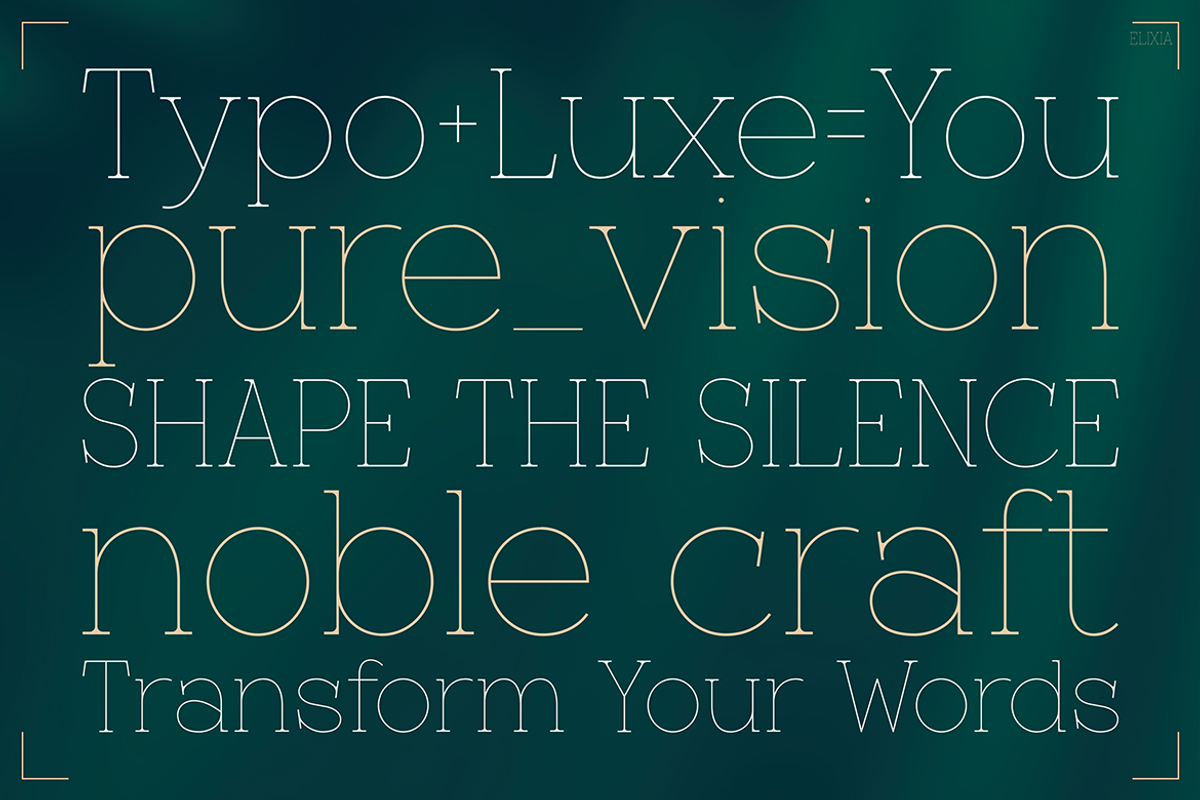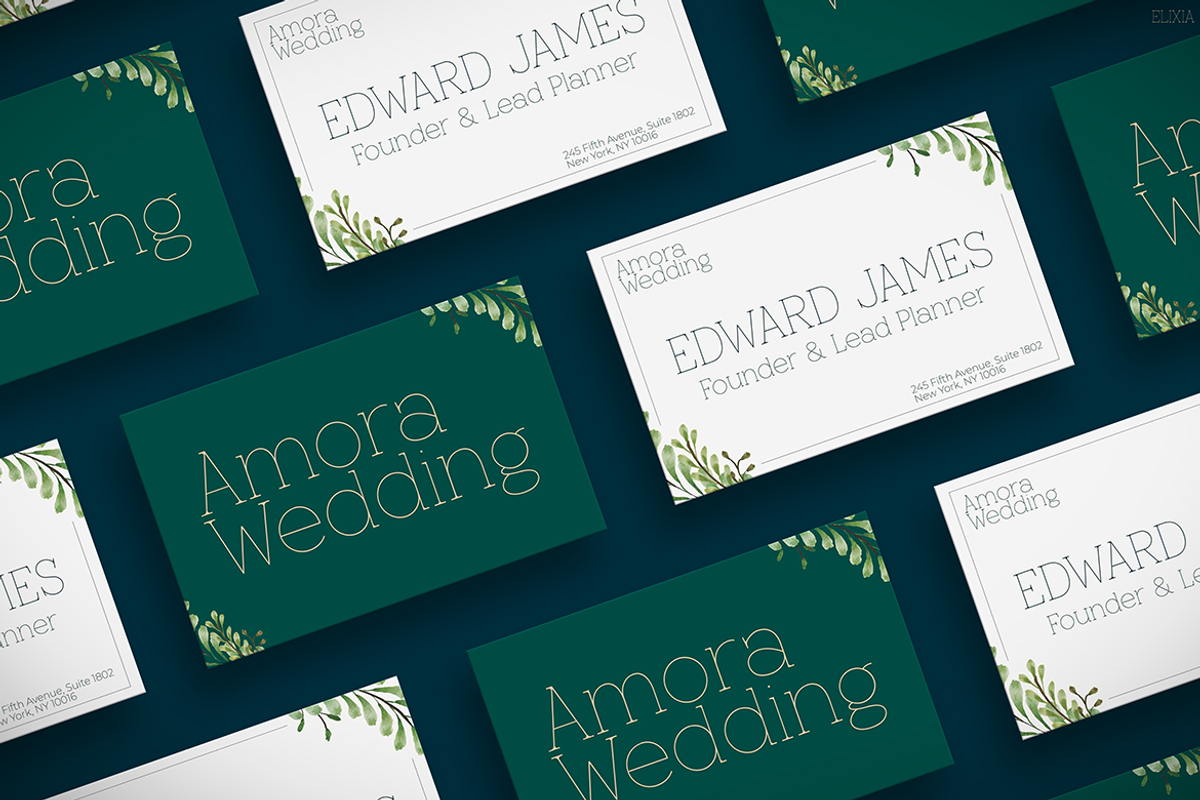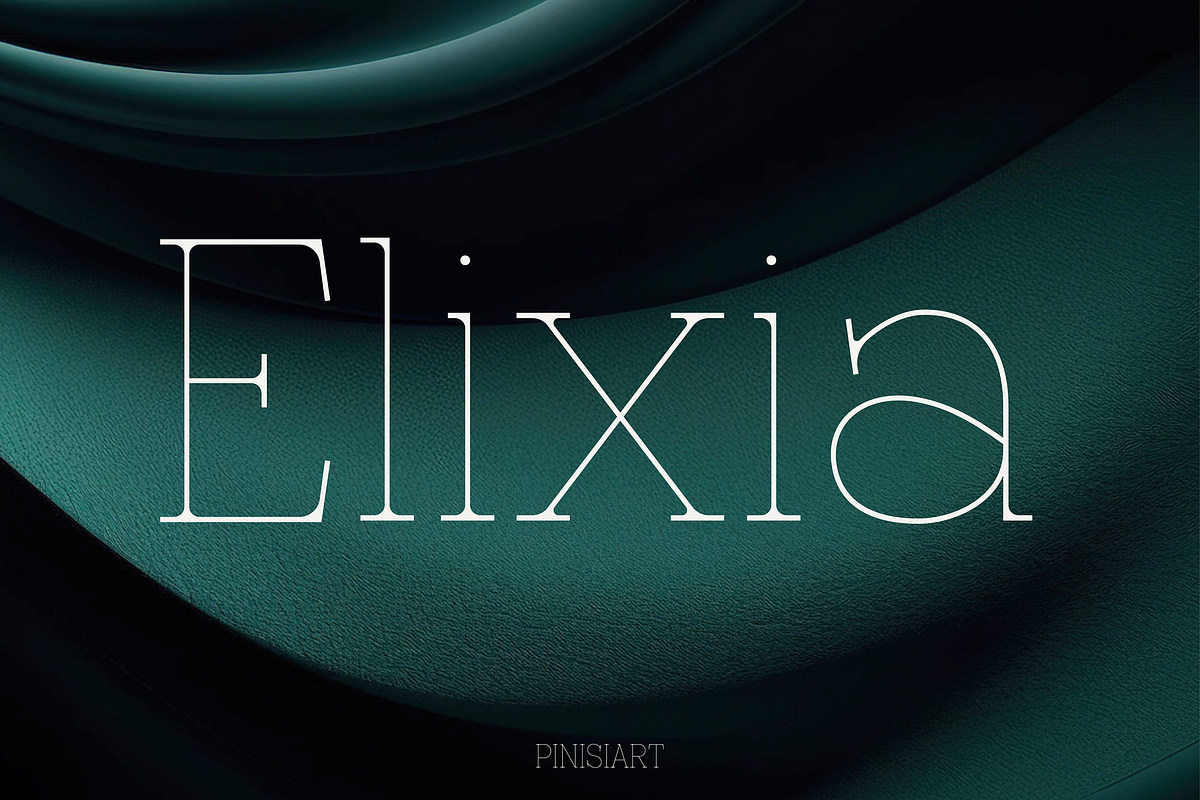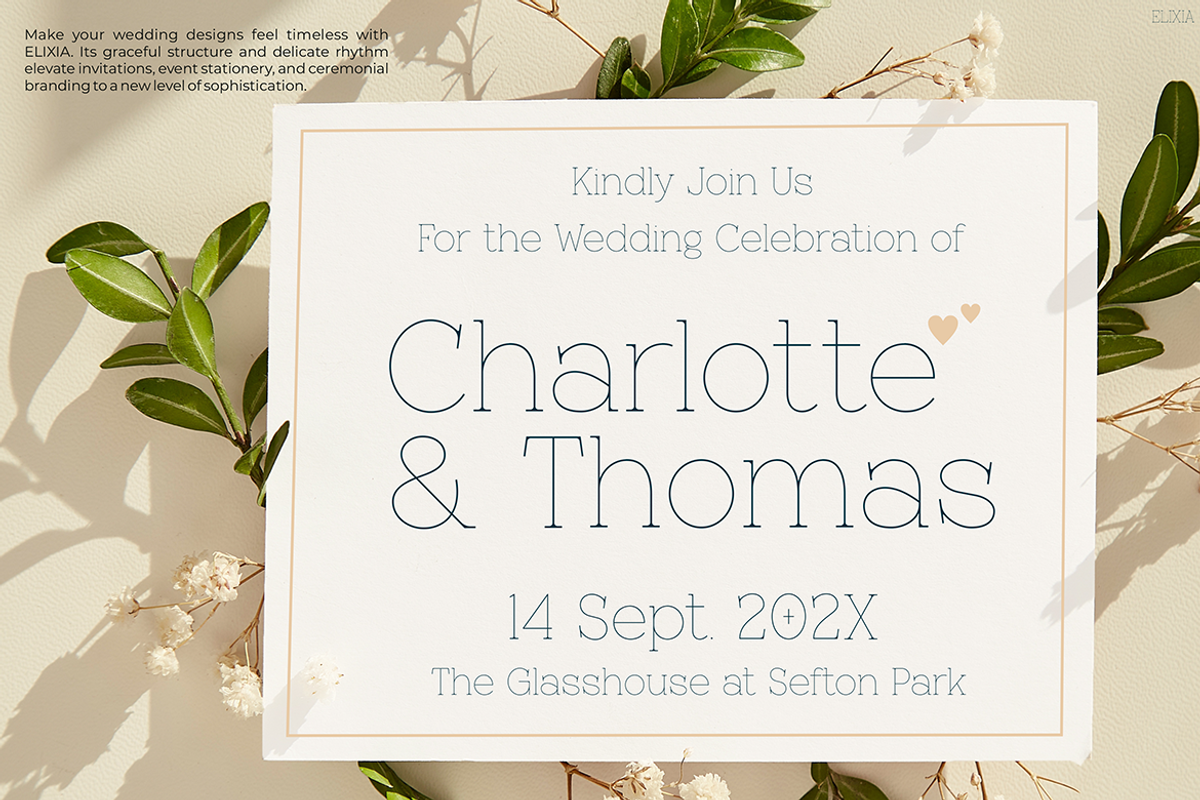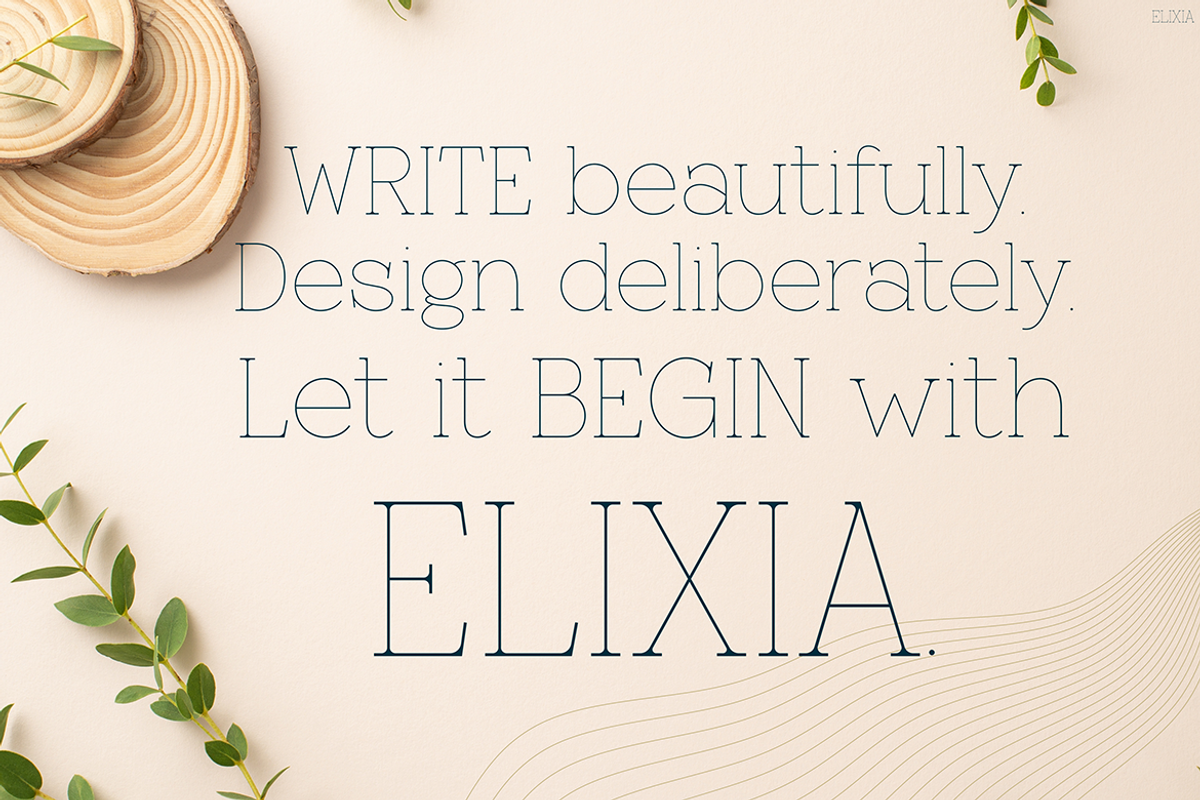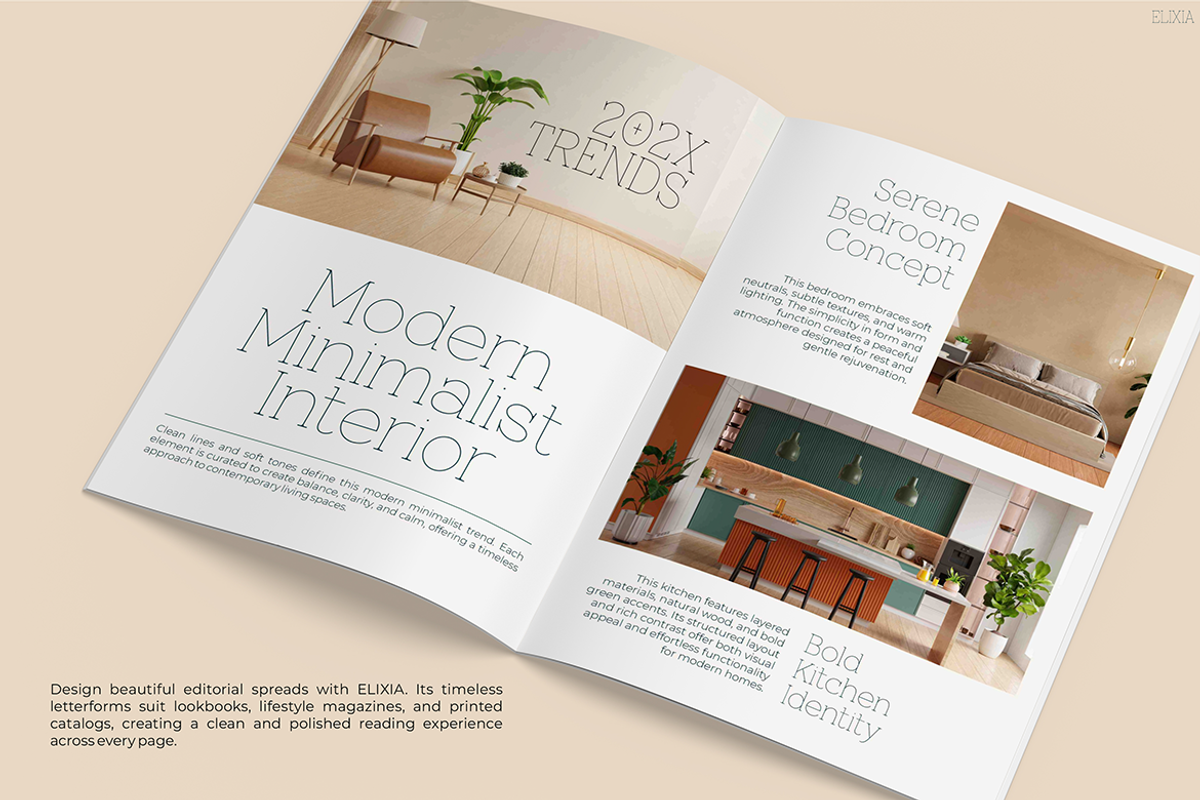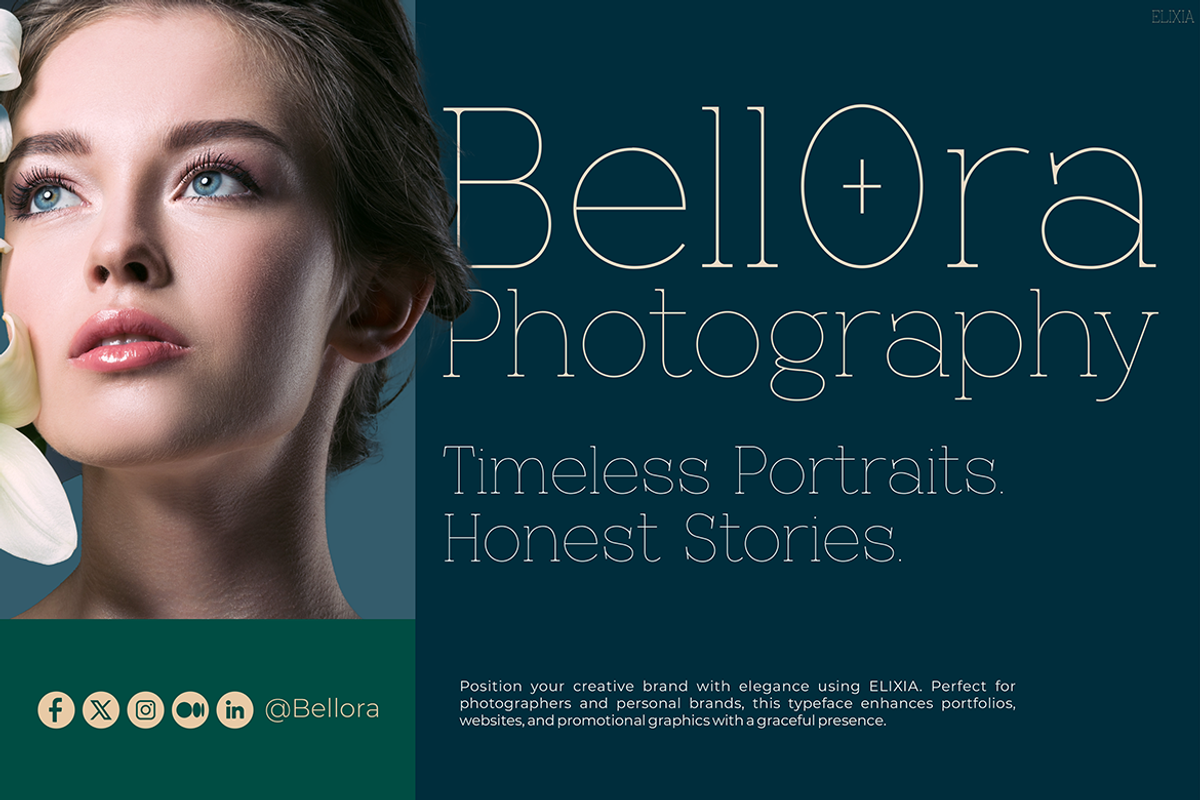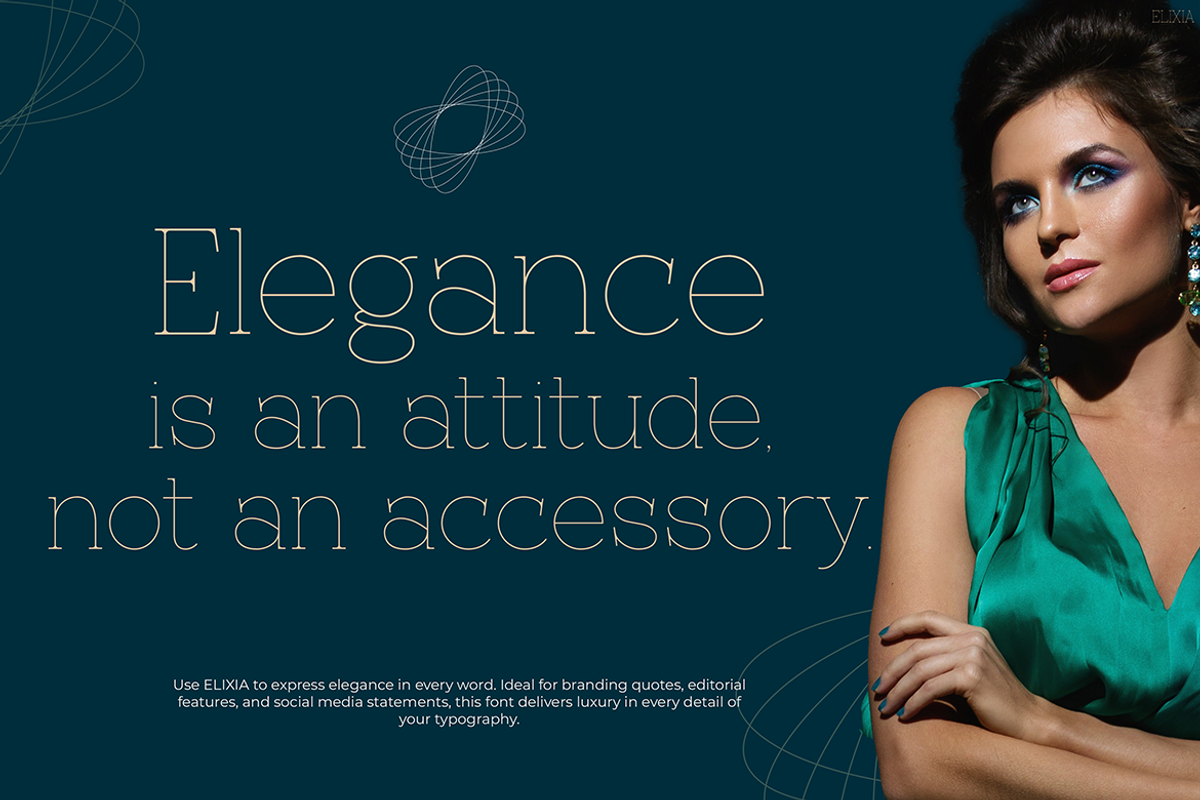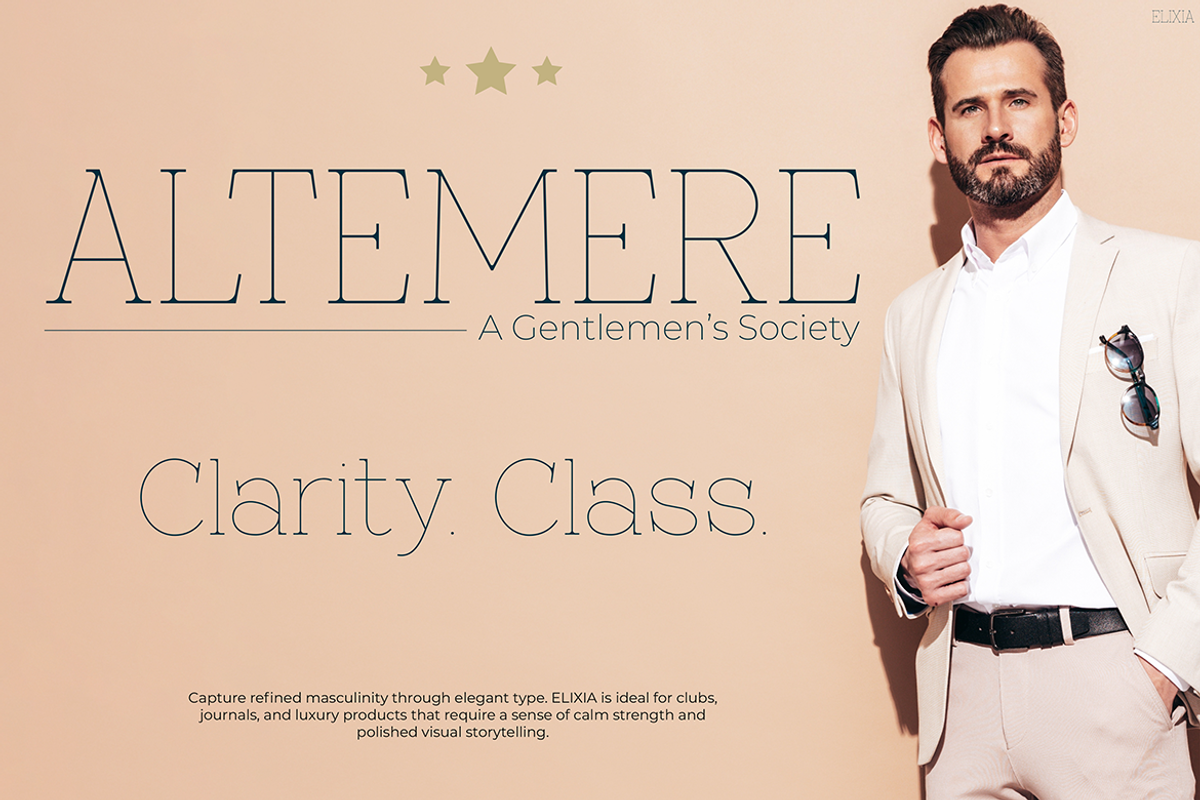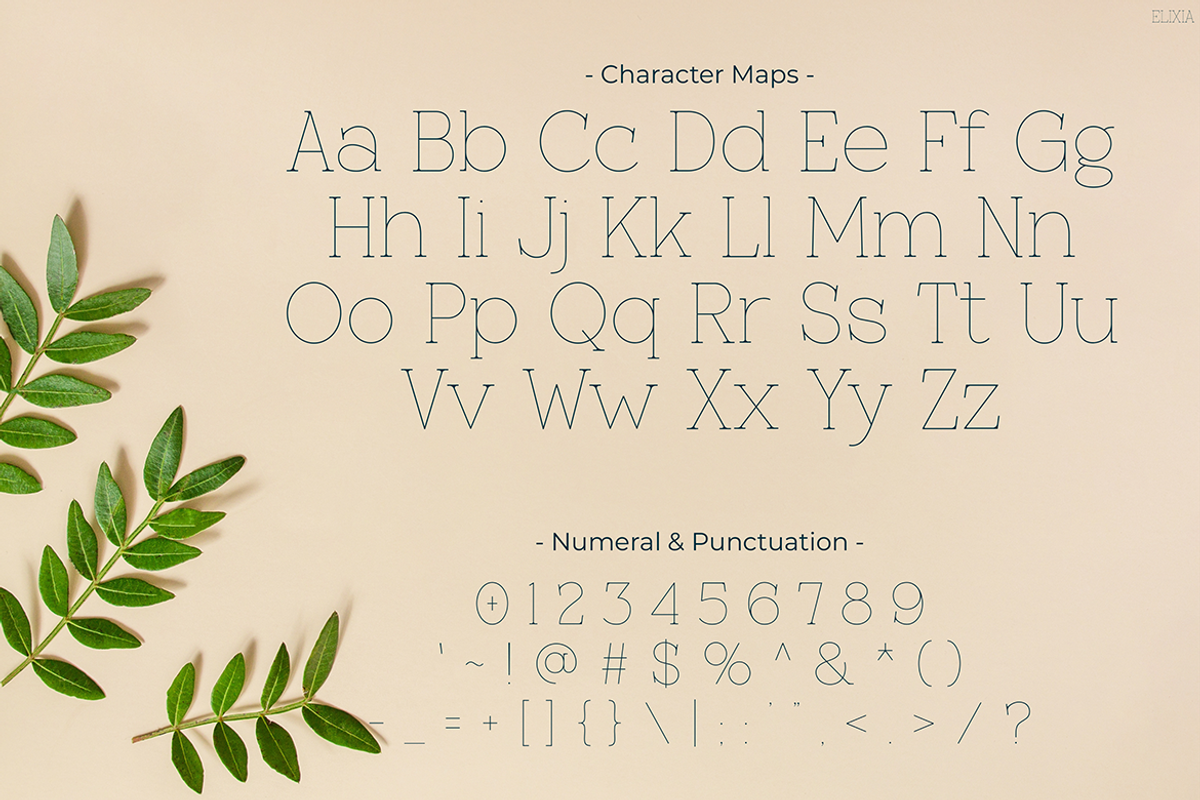
Elixia
Instagram Font Elixia is your ticket to captivating, futuristic design. With its sharp geometry and mystical allure, this font immediately draws attention. Inspired by alchemical symbols and clean linear forms, Elixia blends art and science in a stunning way. As a result, it transforms simple text into a powerful visual statement.
What sets Elixia apart is its balance of precision and creativity. Each character feels like a symbol from another world. While the sharp angles evoke a tech-driven future, the symmetrical shapes offer a sense of harmony. Therefore, it’s both edgy and elegant. Whether you’re designing an Instagram post, crafting a stylish logo, or enhancing digital artwork, Elixia makes your content feel instantly premium and adds drama without overwhelming your layout.
Additionally, its structure supports readability without compromising visual impact. The font works beautifully in minimal layouts, while its striking appearance ensures it never fades into the background. In other words, Elixia helps your design speak louder and more clearly.